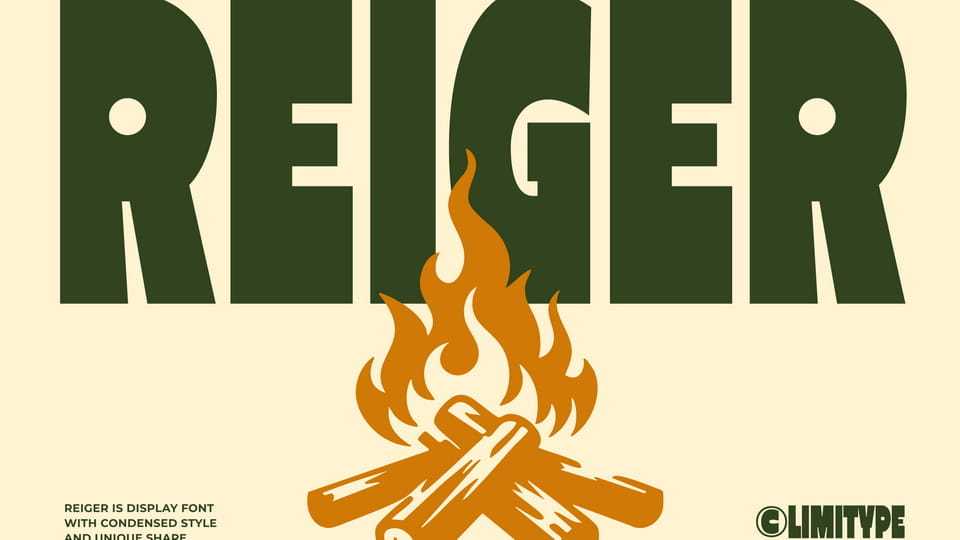
Download Reiger font, a bold display typeface with a condensed structure and a strong, assertive character. Designed to deliver powerful visual impact while maintaining high readability, Reiger presents a modern and distinctive presence.